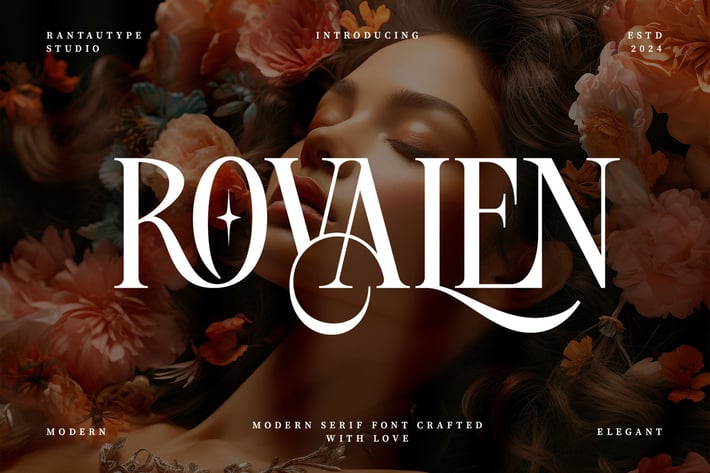
Rovalen Modern Serif Font
Rovalen is modern serif typeface with elegant and classy ligature. We love how ligature to connect with other shape to make different character, inspire by fashion trend and high branded labels.
Rovalen is a perfectly choice for any creative endeavor, chic, lifestyle design such as logos, advertisements, watermark on photography, stationery, branding project, display and magazine, invitation, corporate brand, product design, label, business project and many other project with elegant touch.
Standart Glyphs
Alternate and Ligature